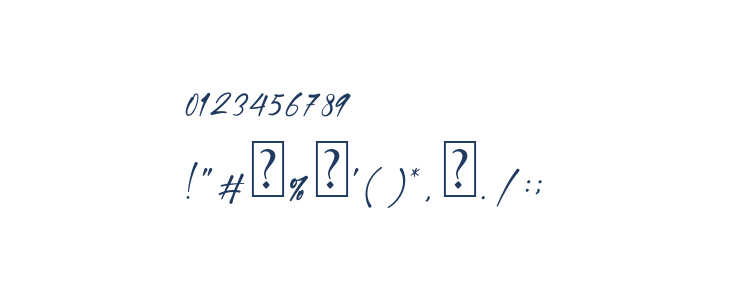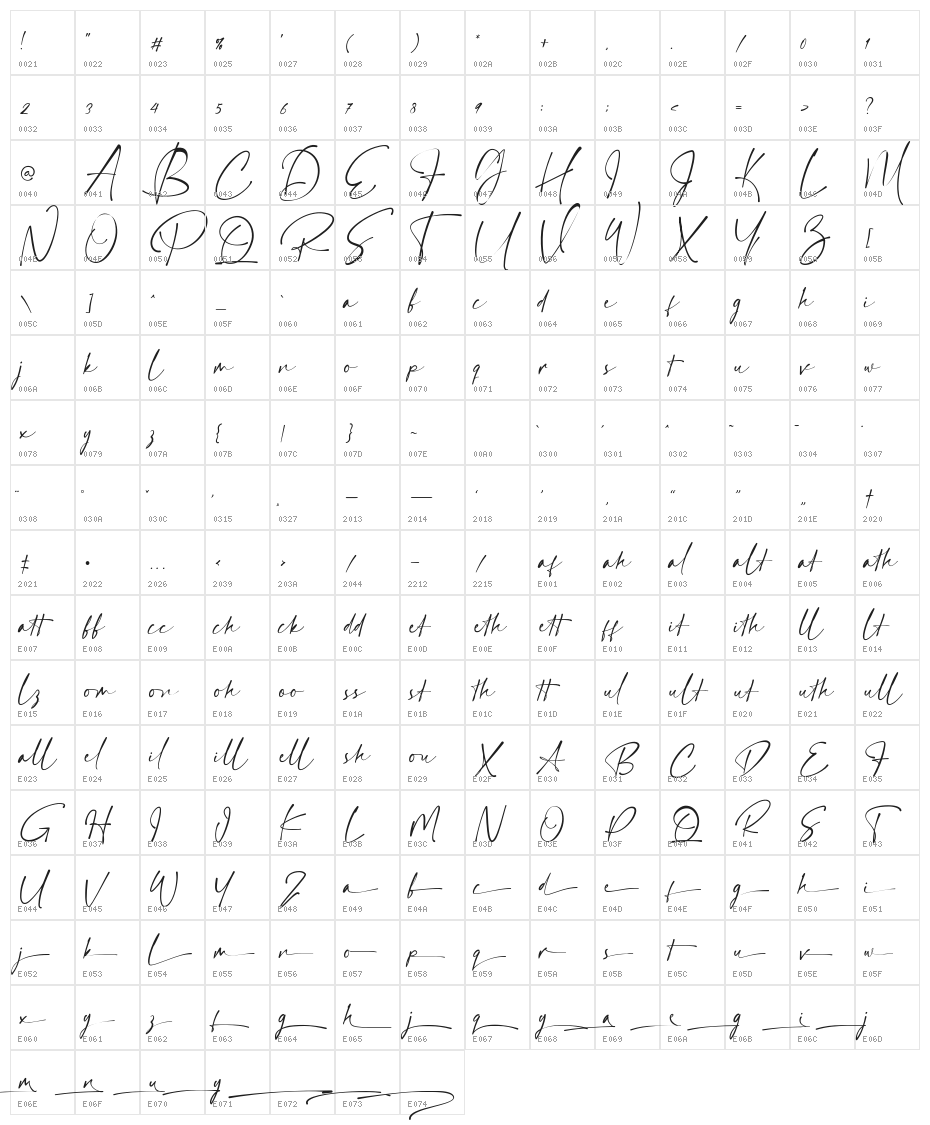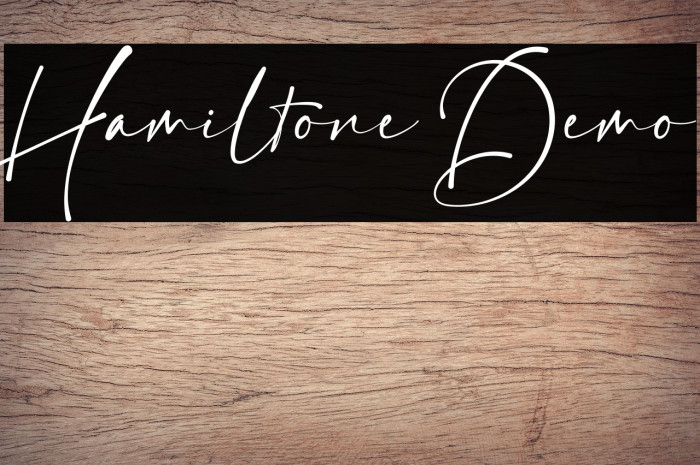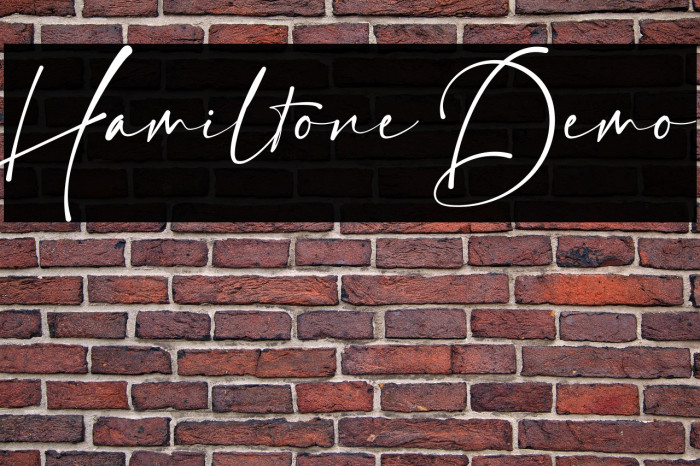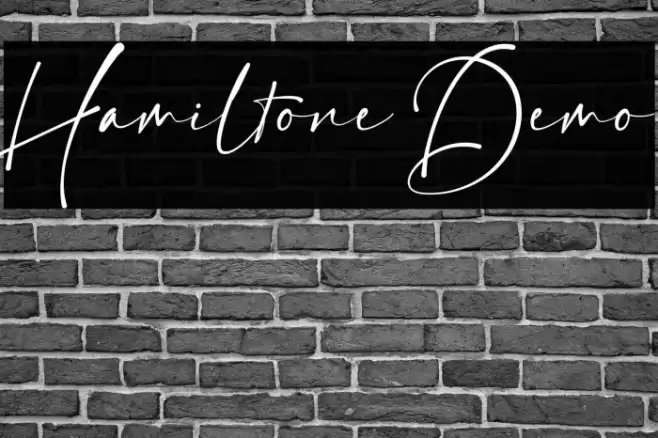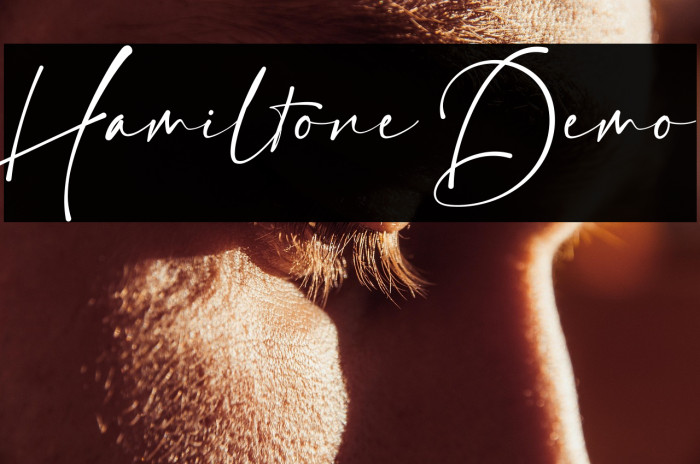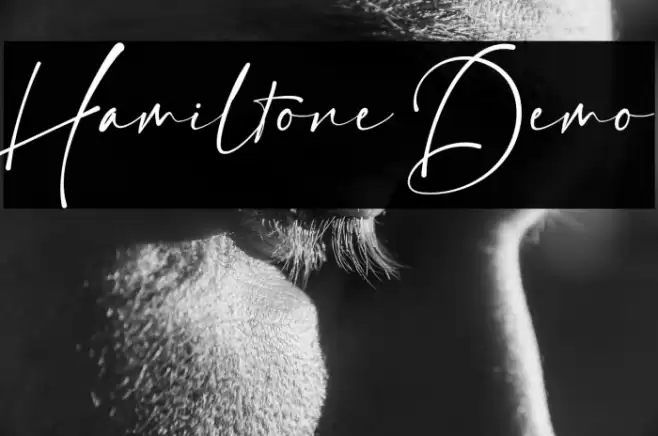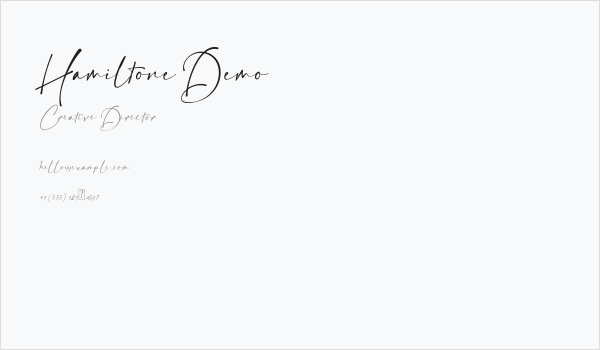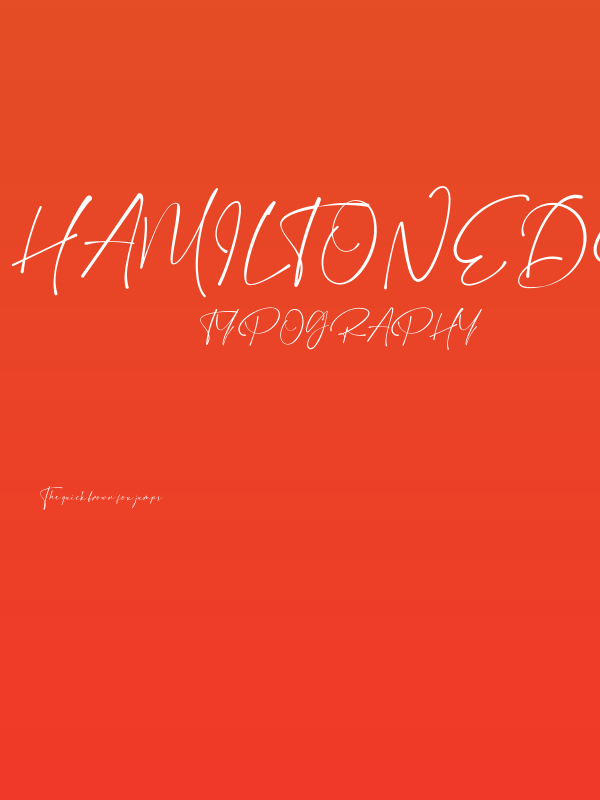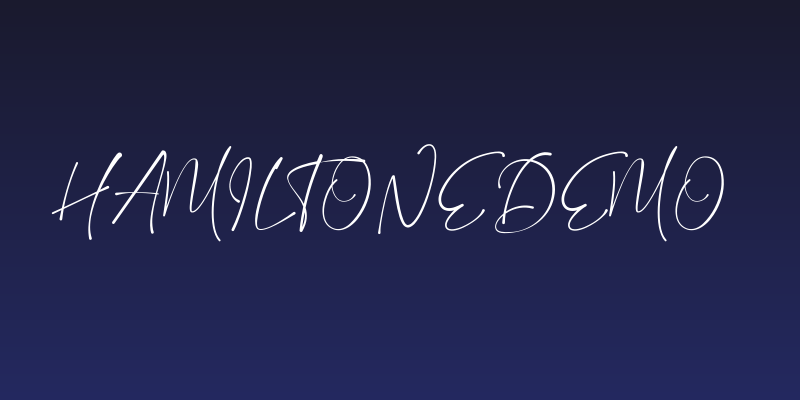
Hamiltone Demo Font
Hamiltone Demo Description
This font exudes a graceful and flowing handwritten style, characterized by its elegant and fluid strokes. The uppercase letters are tall and slightly slanted, giving a sense of movement and sophistication. The lowercase letters maintain a consistent flow, with some characters featuring distinctive loops and curves that add to the overall charm. The numerals are clear and maintain the same elegant style, making them easily readable. Special characters are thoughtfully designed to match the aesthetic, ensuring a cohesive look across all text. This font is perfect for projects that require a personal touch, such as invitations, greeting cards, or branding materials.
| Proposed Projects | Ideal for wedding invitations, personal branding, greeting cards, and elegant packaging. |